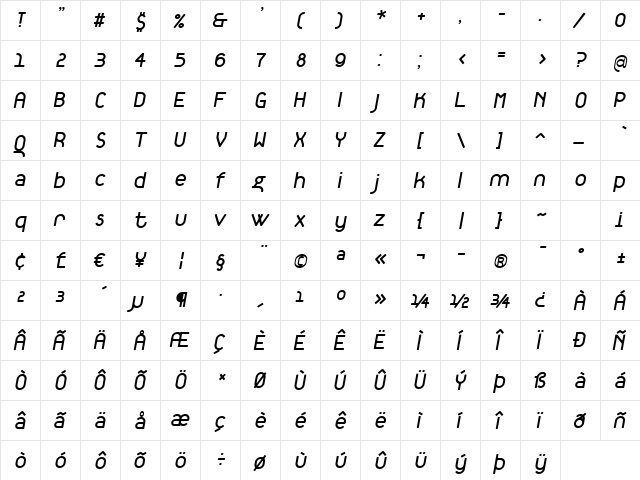
TantalusItalic Regular
Design Context for TantalusItalic Typeface
TantalusItalic takes a measured approach to typography — its balanced proportions and neutral character make it a reliable workhorse for both digital and print work. Its italic angle brings a sense of urgency and motion to the letterforms.
Pro Tip: Use TantalusItalic for emphasis, pull quotes, and subheadings where its slanted energy can add rhythm to the layout.